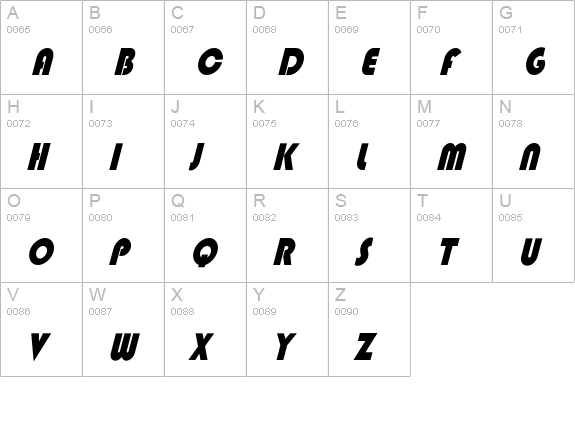
BlippoCndObl-Heavy is a heavy, high-impact variant in the BlippoCndObl typeface family \xE2\x80\x94 well suited to high-impact headlines, posters, and display advertising.
BlippoCndObl-Heavy font is a bold and eye-catching typeface that exudes confidence and modernity. With its strong, condensed letters and heavy weight, it commands attention and makes a bold statement. This font is perfect for headlines, posters, logos, and any design project that requires a powerful and impactful typography. What's even better is that BlippoCndObl-Heavy font is available for free download at FontsMarket.com. This means you can easily access this striking font to elevate your designs without any cost. Don't miss out on the opportunity to add this versatile and dynamic typeface to your font collection today!